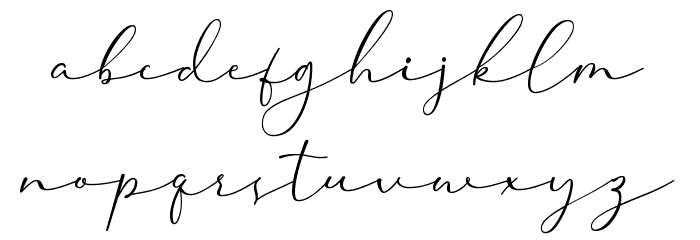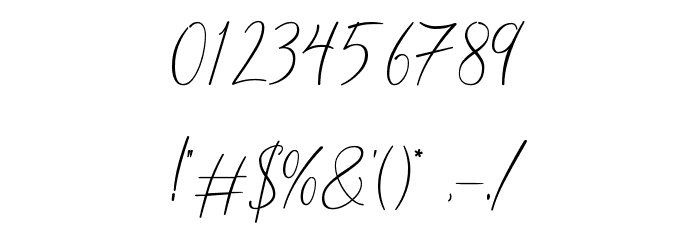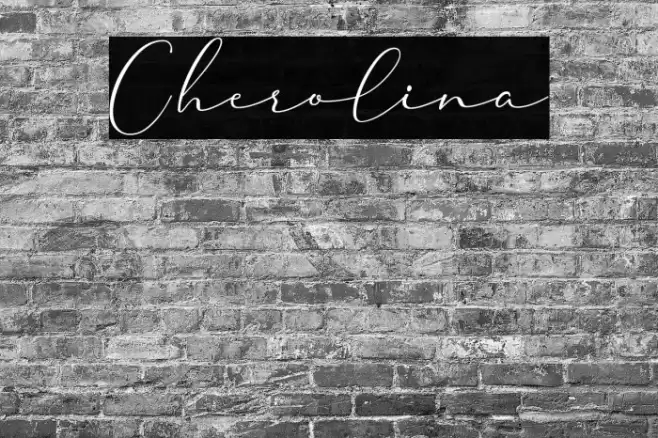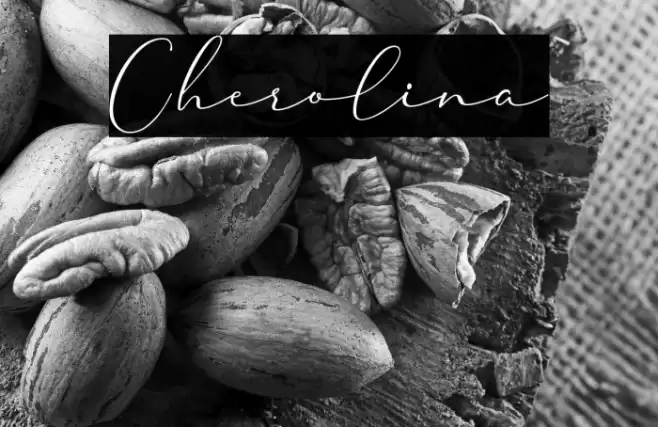
Cherolina Font
This elegant script font features a flowing, cursive style with delicate, thin strokes that convey a sense of sophistication and grace. The characters are connected in a fluid manner, giving the text a seamless and continuous appearance. The uppercase letters are slightly more embellished, with subtle flourishes that add a touch of flair without overwhelming the overall design. The lowercase letters maintain a consistent height, enhancing readability while preserving the font's artistic charm. The numerals and special characters are designed to match the script's aesthetic, ensuring a cohesive look across all text elements. This font is ideal for projects that require a personal, handwritten feel, such as invitations, greeting cards, and branding materials.
A graceful, flowing script font with elegant, thin strokes and seamless character connections.
- Proposed Projects: Ideal for wedding invitations, greeting cards, personal branding, and elegant logo designs.
- Overall Style: Elegant, Handwritten
- Use Case: Invitations, Greeting cards, Branding